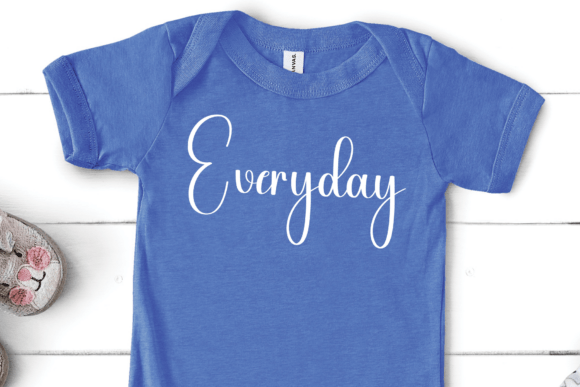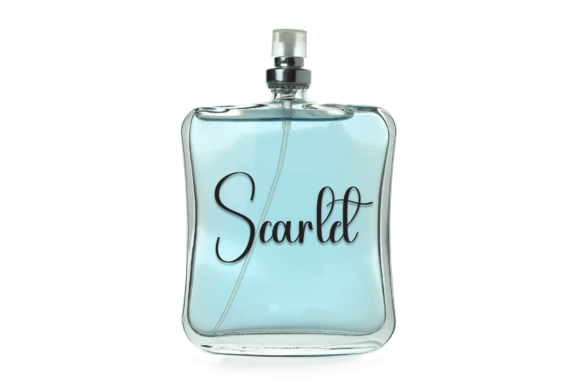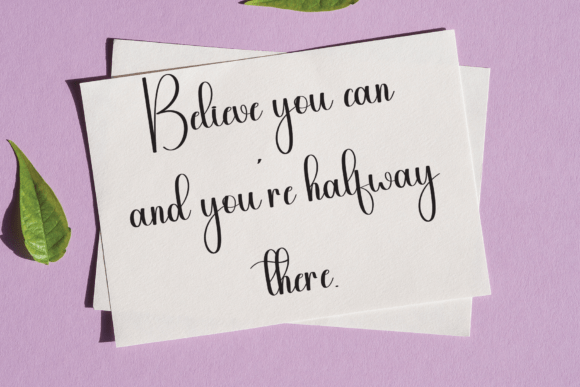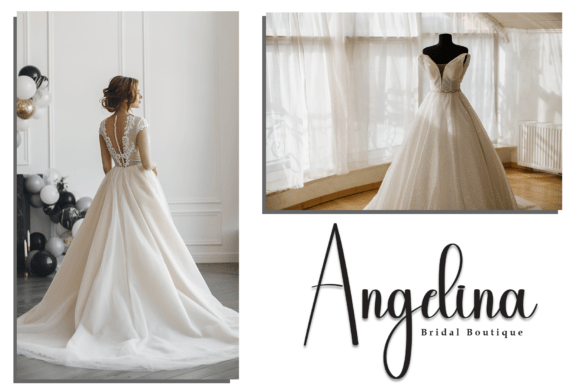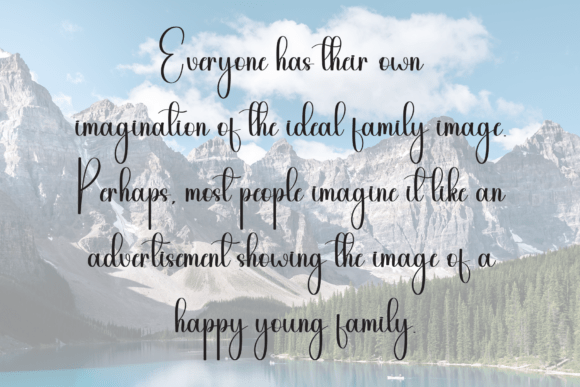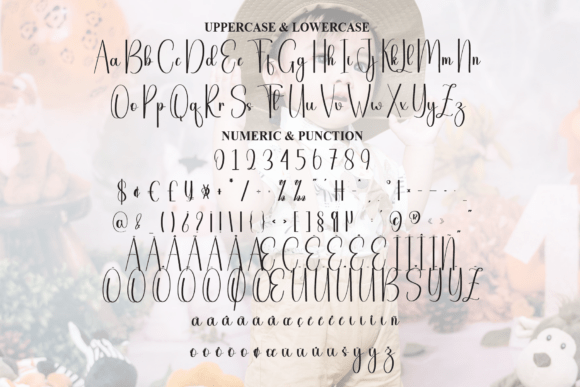
Discovering the Perfect Script Font for Your Next Design Project
As designers, we’ve all been there – staring at a blank canvas, waiting for that spark of inspiration to strike. For me, it was a Saturday morning, sipping coffee and browsing through a font catalog. I stumbled upon Babyday Font, and I was instantly smitten. Its elegant, expressive curves and smooth connections had me hooked.
Babyday Font is a script font designed to add a touch of sophistication and whimsy to your designs. Whether you’re creating wedding invitations, logos, or social media graphics, this font brings a timeless charm that’s sure to captivate your audience. As a designer, you’ll appreciate the versatility of Babyday Font – it’s the perfect tool to elevate your branding projects and leave a lasting impression.
Babyday Font Key Features
- Unique Characteristics: Babyday Font features rounded edges, soft curves, and a delicate touch, making it ideal for designs targeting young audiences.
Babyday Font Review
Overall, I was quite excited to dive into the world of Babyday Font and explore its potential for various design projects. While it has some unique features, I found that it leans more towards being a novelty font rather than a versatile one.
- The playful and whimsical feel of the font makes it perfect for projects related to children, nursery, or baby-themed designs.
- The font is available in a wide range of weights and styles, which can be useful for designers who want to create a consistent visual flow in their work.
- The bold and cursive scripts are well-crafted and add a touch of elegance to the font.
- The font’s design is quite cartoonish and might not be suitable for more professional or corporate designs.
- The character set is limited, which can make it difficult to use in languages that require a wide range of special characters.
- The font’s readability can be affected by the bold and cursive scripts, making it challenging to read in smaller font sizes.
Overall, I would recommend Babyday Font for designers who are working on projects that require a playful and whimsical touch. However, it may not be the best choice for more serious or professional designs.
Tips for Getting the Most Out of Babyday Font
Here are some tips to help you get the most out of Babyday Font:
- Use it for baby-related designs, such as nursery decor, baby shower invitations, and children’s clothing.
- Pair it with pastel colors for a soft and delicate look.
Babyday Font is perfect for:
- Baby shower invitations and decor.
- Nursery wall art and decor.
- Children’s clothing and accessories.
- Baby-related social media graphics and posts.